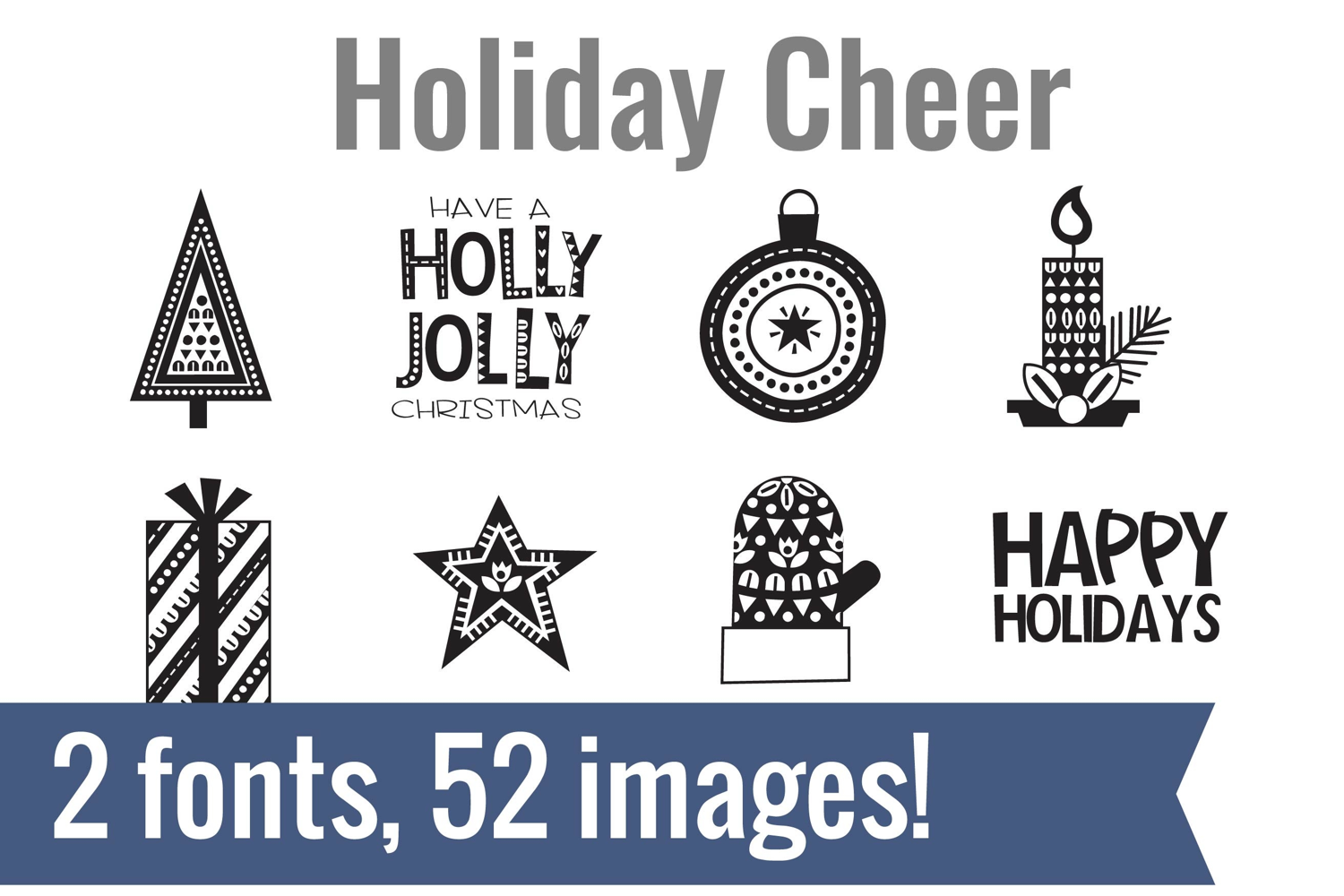
Holiday Cheer Dingbats
Unlock endless creativity with two perfectly coordinated fonts! There are two dingbat fonts in this bundle, featuring the cutest, patterned Christmas imagery and animals.